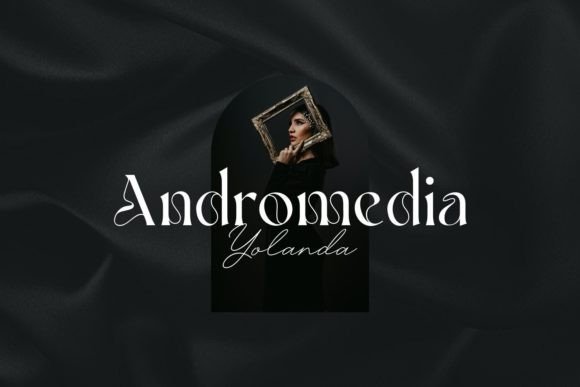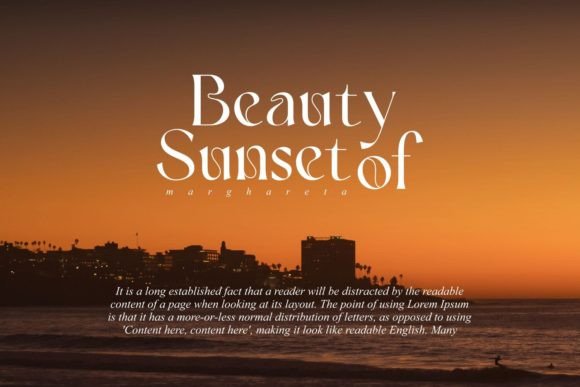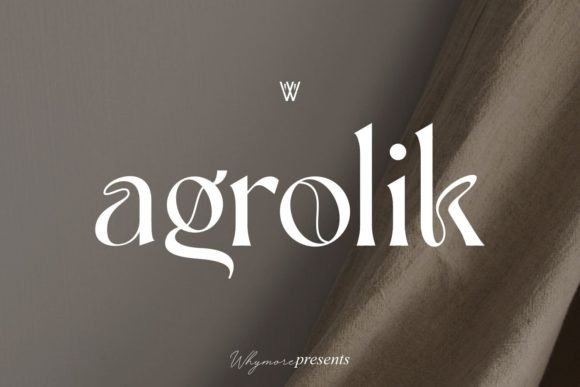
Agrolik Font: Elegant Serif Typography for Modern Logo Design
About the Agrolik Font
Unleash your creativity with Agrolik Font, a versatile font perfect for a wide range of applications. Agrolik is an elegant serif font, that features a very delicate and classy look. Not too thin and not too thick, balanced and varied, Florania was designed to enhance the beauty of your projects.
Agrolik’s elegant serif design makes it ideal for headlines, logos, and short-form text in branding materials and packaging where its refined aesthetic shines. It also works well for posters and invitations, adding a touch of sophistication. However, its delicate nature makes it unsuitable for body text or long paragraphs, and its limited character set might restrict its use in UI design.
Pairing Agrolik effectively requires considering its elegant personality. A clean sans-serif like Open Sans or Lato would create a modern contrast, while a playful script font like Pacifico could add a touch of whimsy for specific applications. For a more classic feel, a geometric sans-serif such as Futura would provide a strong and balanced pairing.
Agrolik projects an air of sophisticated elegance, making it a perfect choice for brands aiming for a refined and timeless image. The font’s balanced strokes and classic serifs convey a sense of trustworthiness and quality without appearing overly formal or stiff.
Agrolik Font Usage Examples
Agrolik Font Example